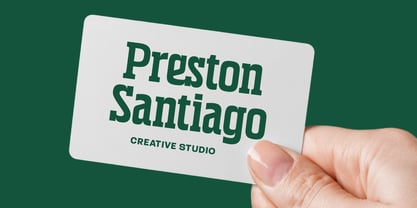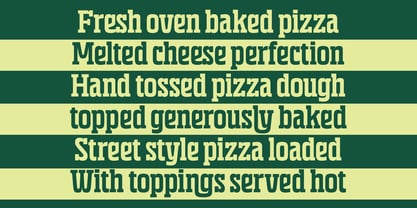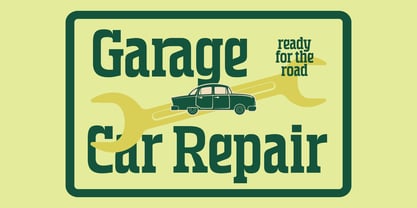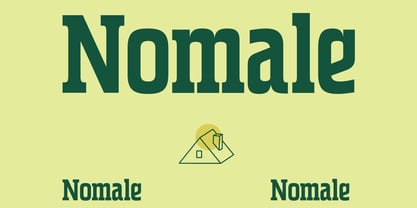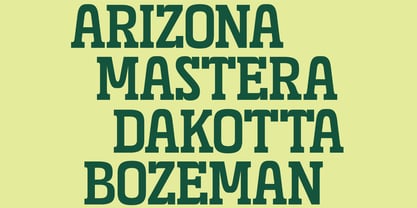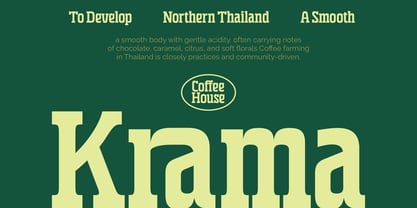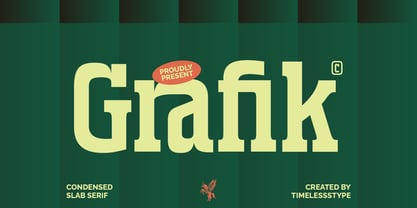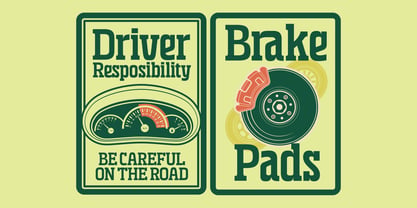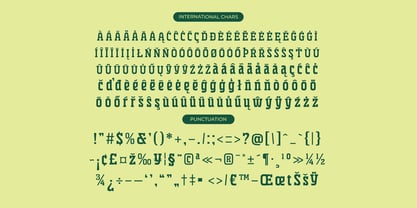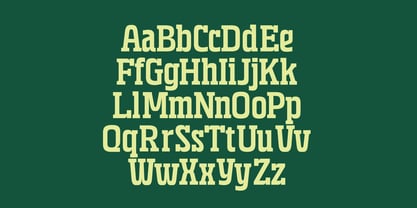
The Grafik Font Family was designed by Heru Utama Putra and published by Timelesstype Studio. Grafik contains 2 styles and family package options. More about this family
Grafik is a bold condensed slab-serif typeface designed for strong visual impact and modern editorial versatility. With its sturdy forms, tight proportions, and refined geometric balance, Grafik delivers a confident typographic presence ideal for headlines, posters, branding, sports visuals, product packaging, and bold advertising layouts. Its distinctive slab structure ensures excellent readability while maintaining a contemporary attitude, making Grafik a reliable choice for designers seeking a clean, powerful, and character-rich display font that stands out effortlessly in any professional composition.